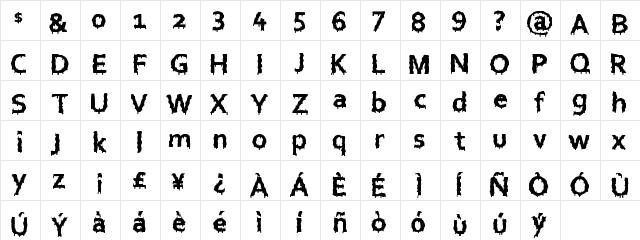
EuroHorror Regular
Design Context for EuroHorror Typeface
EuroHorror carries an unsettling edge — its distorted letterforms are built to unsettle, perfectly suited to horror, Halloween, and dark creative work.
Perfect for anything that needs to unsettle — game titles, horror branding, and macabre invitations.
Font Pairing: Pair with a clean neutral sans-serif for body copy to let EuroHorror's character lead without overwhelming the composition.
Pro Tip: Use EuroHorror at larger display sizes for maximum impact. Consider generous tracking to let the disturbing character of each letterform breathe.